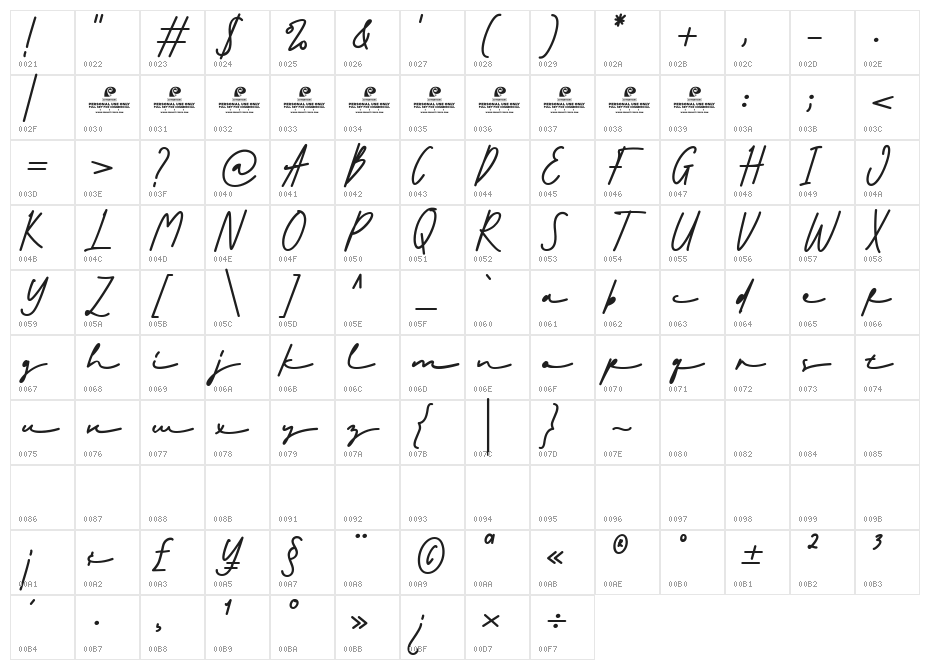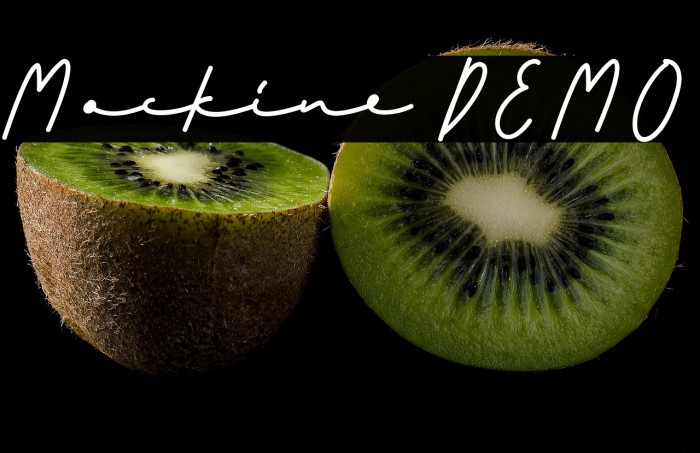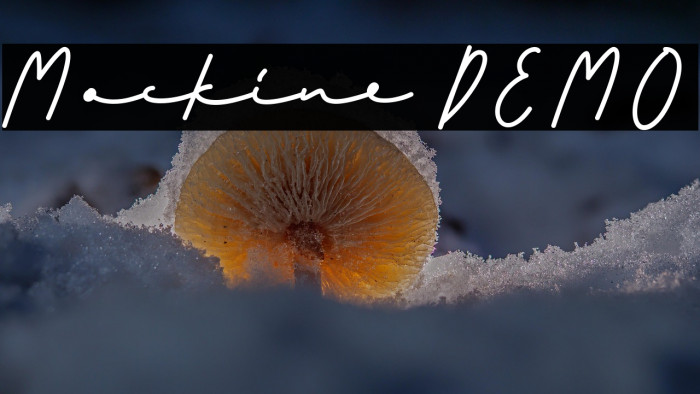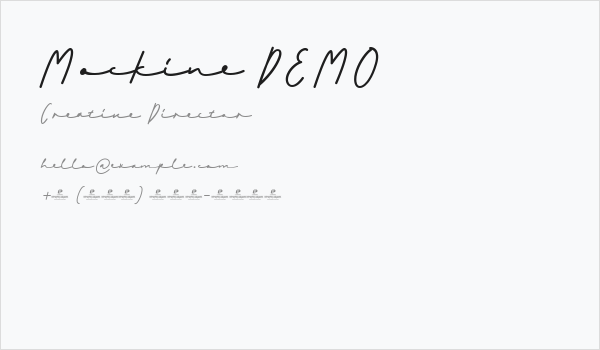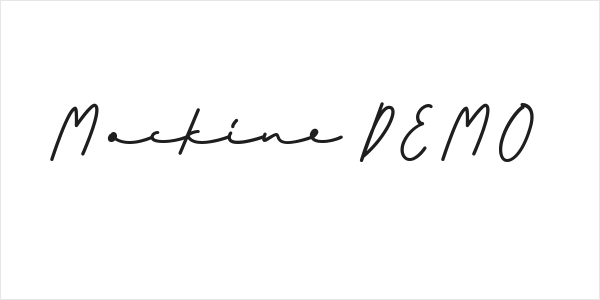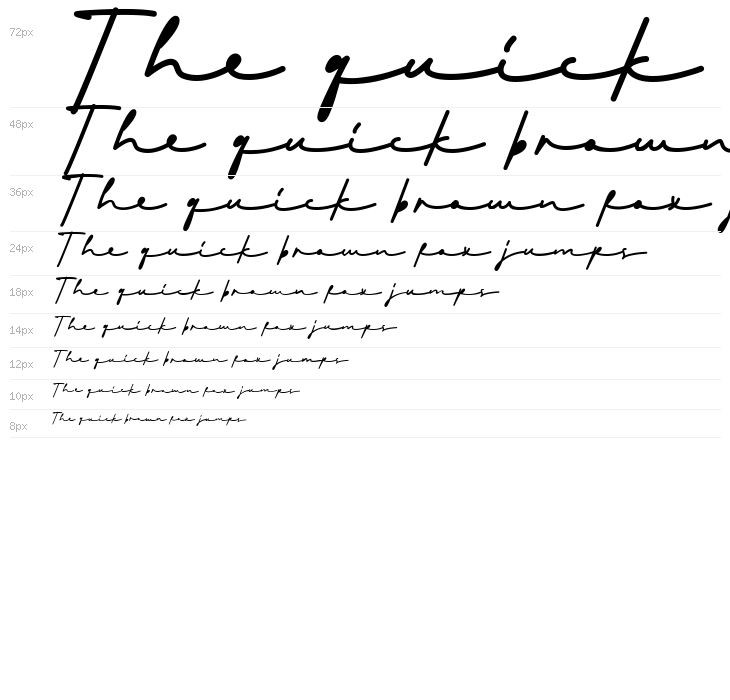
Mockine DEMO Font
Mockine DEMO Description
This font features a fluid, handwritten style that exudes a sense of elegance and personal touch. The uppercase letters are tall and slightly narrow, with a consistent slant that adds a dynamic feel. The lowercase letters maintain the same slant, with smooth, flowing connections that mimic natural handwriting. The numbers and special characters are crafted with the same attention to detail, ensuring a cohesive look across all elements. This font is ideal for projects that require a personal or artistic flair, such as invitations, greeting cards, or branding materials.
| Overall Style | Elegant, Artistic |
| Use Case | Headlines, Logos, Artistic projects |
| Proposed Projects | Ideal for invitations, greeting cards, branding materials, and artistic projects. |